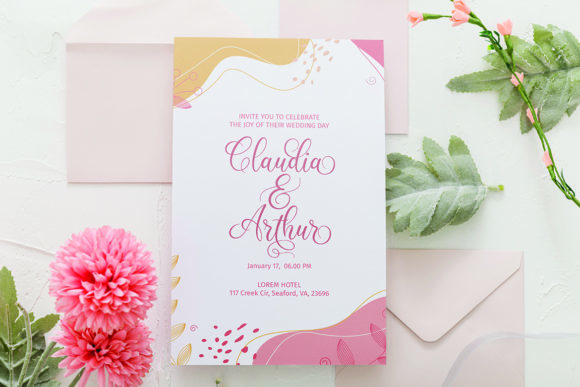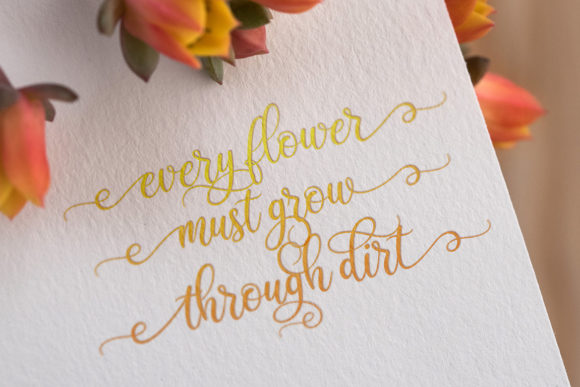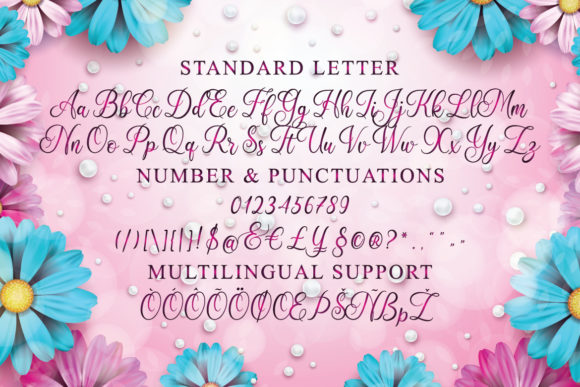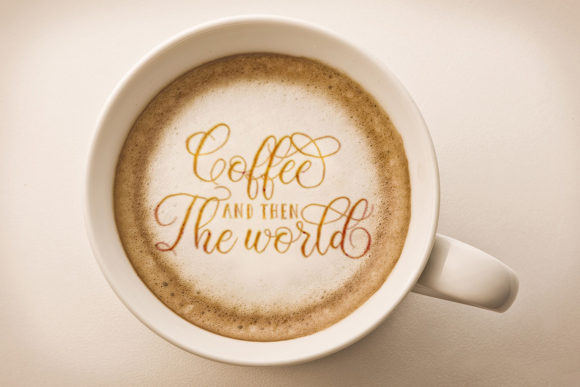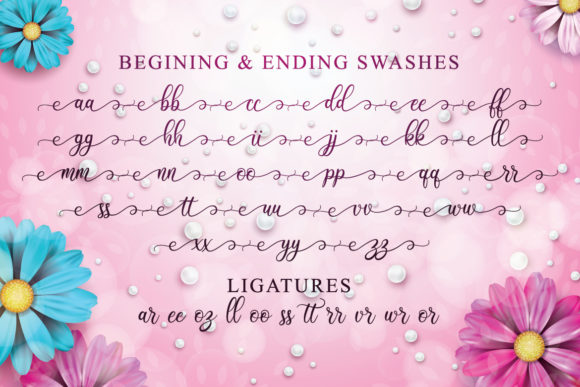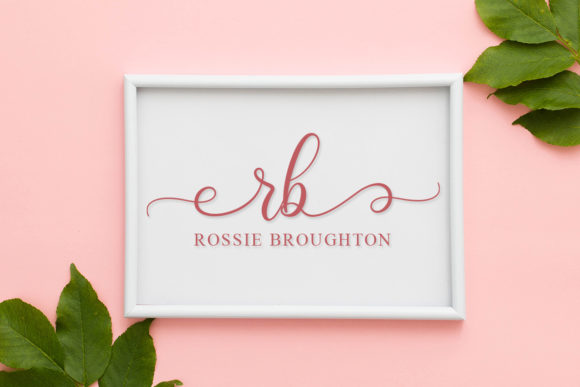
The Perfect Script for Your Next Masterpiece
As a designer, there’s nothing quite like the thrill of bringing a new project to life. You’re sipping your coffee, scrolling through inspiration boards, and suddenly, the perfect font appears – the one that elevates your design from good to great. For me, that moment came when I stumbled upon the Bonavista Font. Its elegant, flowing lines seemed to dance across the screen, whispering possibilities and creativity.
The Bonavista Font is more than just a pretty face. It’s a versatile tool designed to help you create stunning, high-end designs. With its PUA encoding and gorgeous glyphs, you’ll have access to a world of expressive options. Whether you’re a seasoned pro or just starting out, this font is sure to become your go-to companion for bringing your vision to life.
- Unique Characteristics: Bonavista Font features a unique blend of modern and classic elements, with intricate details and ornate flourishes that set it apart from other fonts.
Bonavista Font Review
I recently had the chance to work with the Bonavista font, and I’m excited to share my honest review with you.
- Elegant Script Lines: The Bonavista font features beautiful, flowing script lines that add a touch of sophistication to any design.
- Versatile: This font can be used in a variety of contexts, from formal invitations to casual social media posts.
- Easy to Read: Despite its ornate design, the Bonavista font is surprisingly easy to read, making it a great choice for body text.
- Limited Character Set: The Bonavista font has a relatively small character set, which may limit its use in certain situations.
- Not Ideal for Small Text: Due to its ornate design, the Bonavista font may not be the best choice for small text sizes, as the lines can become blurry.
Overall, I’m impressed with the Bonavista font’s elegant design and versatility. While it may have some limitations, it’s a great choice for designers looking to add a touch of sophistication to their work. With its beautiful script lines and easy-to-read design, the Bonavista font is sure to be a hit in any design project.
The Bonavista font is ideal for creating elegant and sophisticated designs, such as wedding invitations, luxury branding, and high-end marketing materials. To get the most out of it, use it in conjunction with other elegant fonts and design elements, such as cursive scripts and intricate patterns. Experiment with different font sizes and styles to create visually appealing and balanced designs.